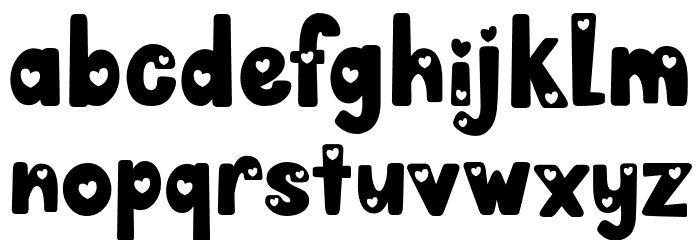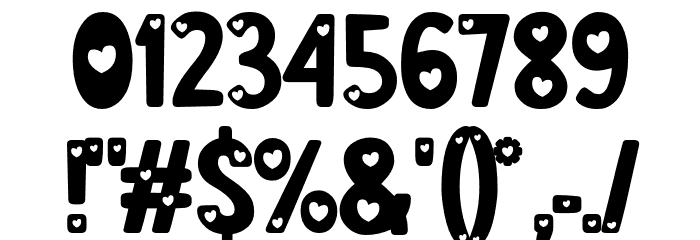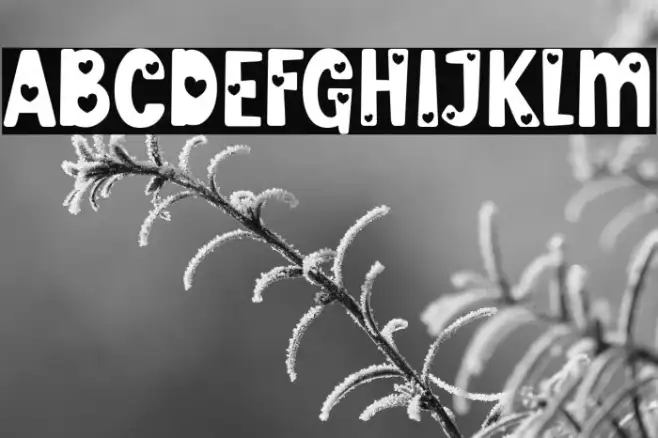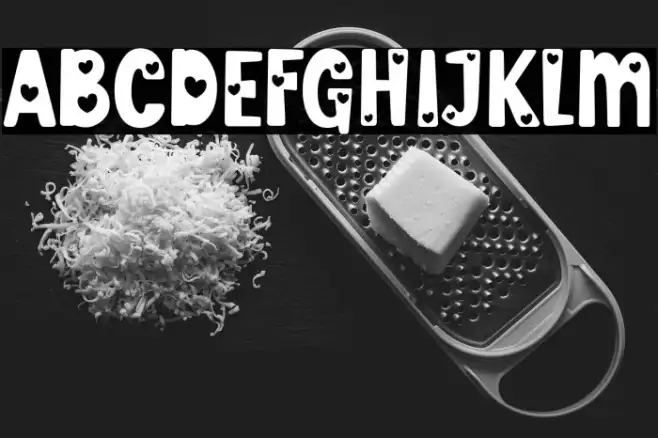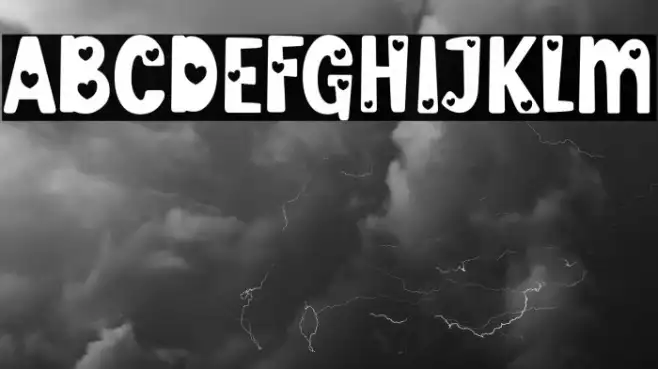
DoItwithLove Font
This playful and whimsical font features bold, rounded characters with heart-shaped cutouts, adding a touch of charm and romance. The letters are evenly spaced, with a consistent thickness that gives a cohesive look. The heart motifs within each character make it ideal for designs that aim to convey love, affection, or a sense of fun. The font's unique style is both eye-catching and endearing, making it suitable for a variety of creative projects. Its bold appearance ensures readability while maintaining a decorative flair.
A playful, heart-themed font with bold, rounded characters.
- Proposed Projects: Ideal for Valentine's Day cards, wedding invitations, children's book covers, playful branding, and romantic social media graphics.
- Use Case: Headlines, Logos, Invitations